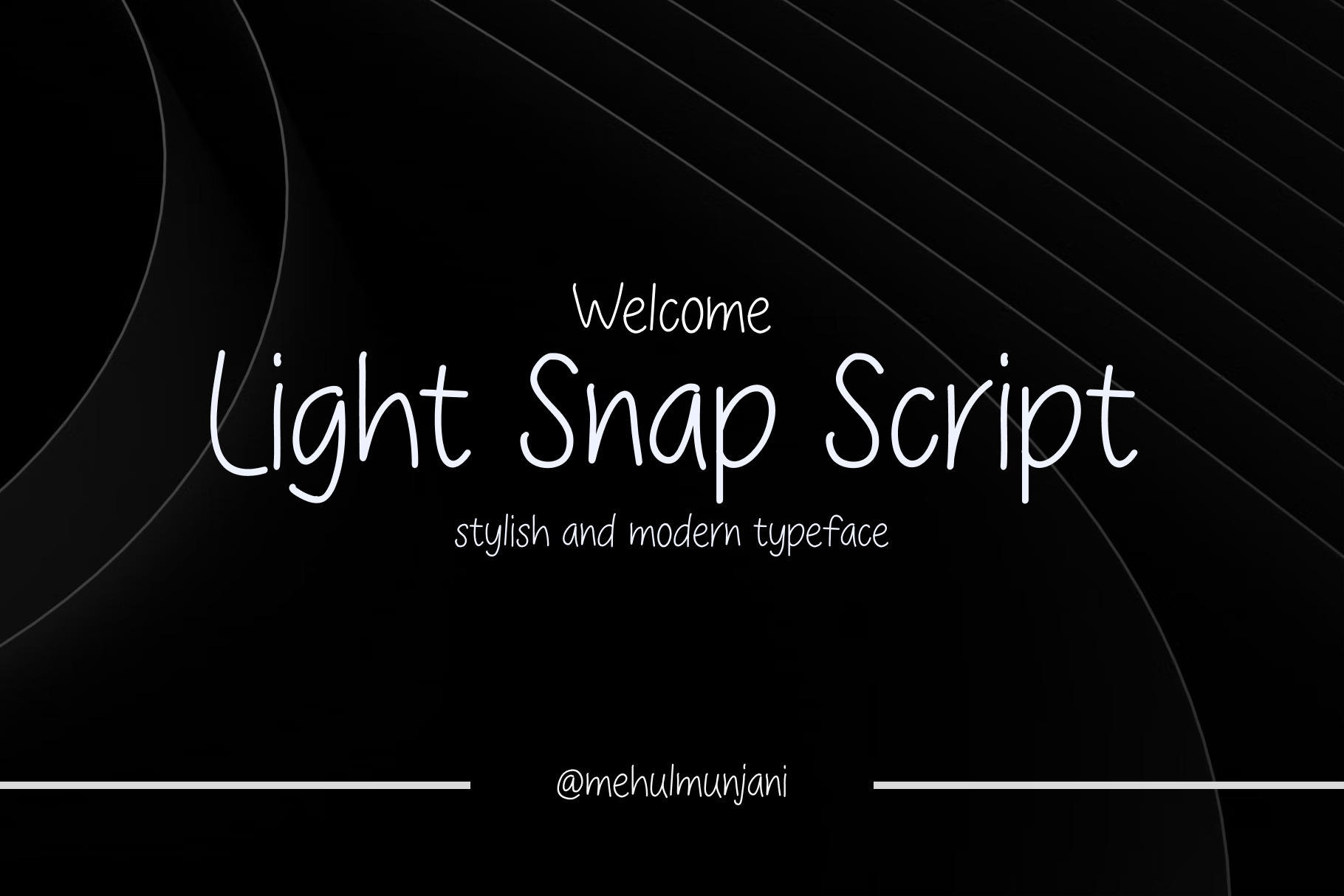
Light Snap 2 Sans Serif Font
LIGHT SNAP 2 FONT A clean serif font with a modern feel. Includes a ton of fun alternates to dress up your text!
LIGHT SNAP 2 FONT gives it a clean, modern look that is easy to read, making it popular for digital media and screens. LIGHT SNAP Sans serif font is often used for headings, logos, and other graphic design applications where a bold, modern look is desired.
LIGHT SNAP 2 FONT is perfect for logos, branding, wedding invitations, business cards, greeting cards, posters, magazines, social media, planner prints and websites.